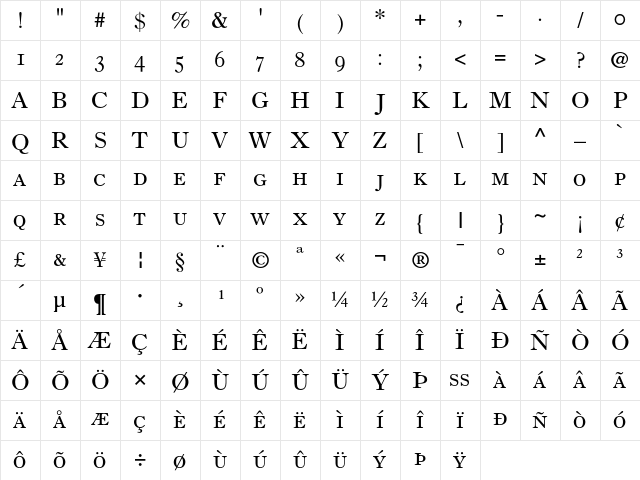
Old Style 7 Small Caps & Old Style Figures
Style: Small Caps & Old Style Figures
Old Style 7 Family
Design Context for Old Style 7
Old Style 7 is a composed and adaptable typeface that performs quietly and consistently across a wide range of design contexts.